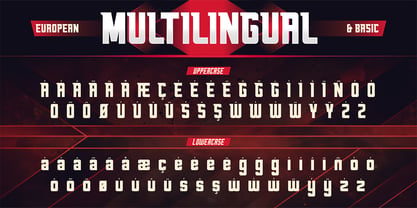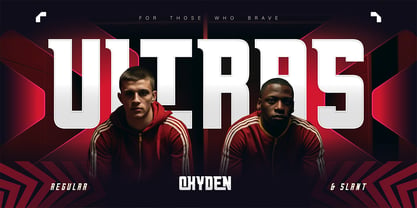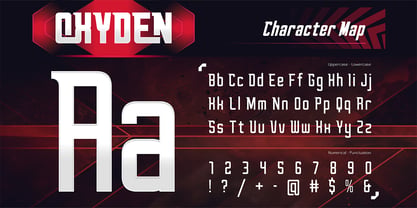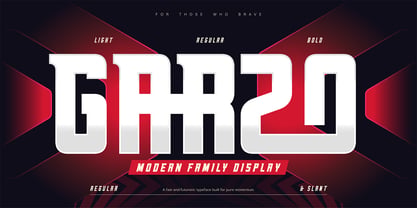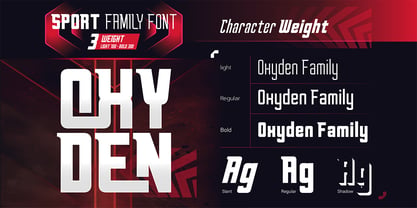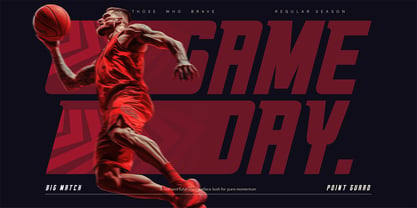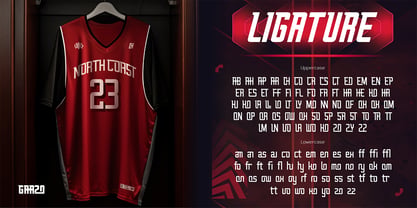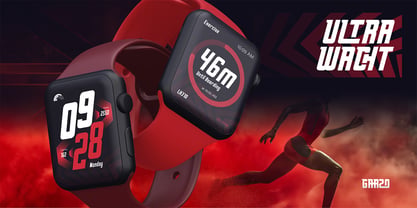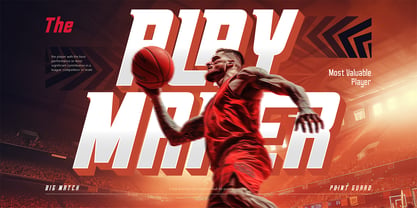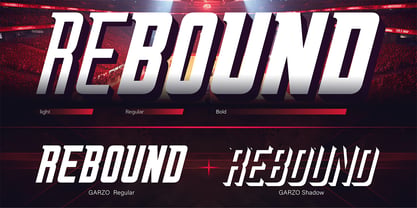
Garzo
La familia tipográfica Garzo fue diseñada por Eric Kurniawan y publicada por Burntilldead. Garzo contiene 3 estilos y opciones de paquete familiar. Más información sobre esta familia
Garzo is a modern display typeface designed with a strong geometric structure and confident proportions. Built for impact, this font features bold vertical strokes, sharp angles, and a slightly condensed form that gives it a fast, futuristic presence without feeling aggressive. What makes Garzo stand out is its versatility as a font family. With multiple styles such as Light, Regular, Bold, Slant, and Shadow, it allows designers to create dynamic typographic systems while keeping a consistent visual identity. The slanted style adds motion, while the shadow style brings depth and dimension without relying on external effects. Even at heavy weights, Garzo stays readable and sharp. Garzo works exceptionally well for Headlines & titles, Sports branding, Racing & automotive visuals, Event posters, Editorial layouts, Logos and bold statements. This typeface is built to move, to compete, and to stand tall—modern, confident, and ready to perform. Features: A - Z set (Uppercase & Lowercase), Number, Punctuation, Ligatures, Multilingual